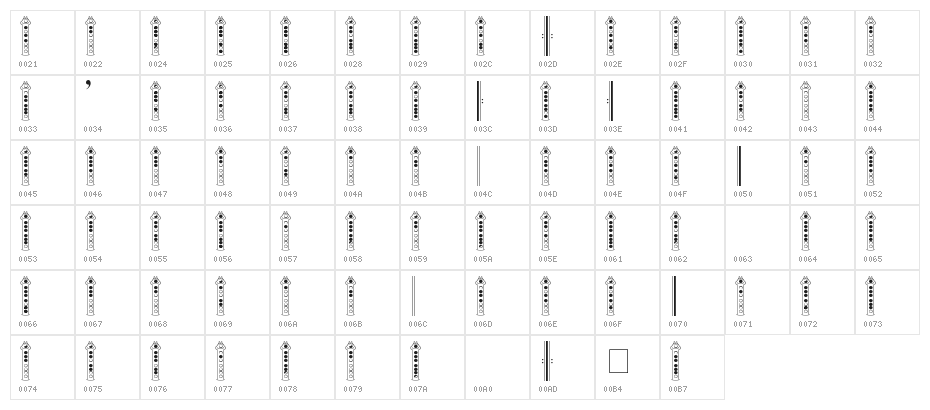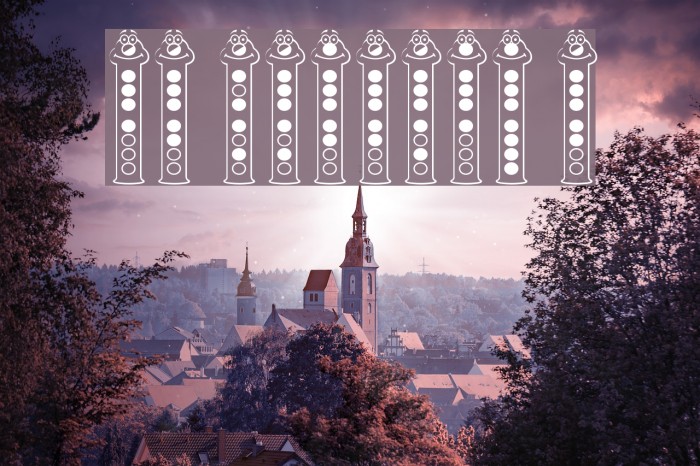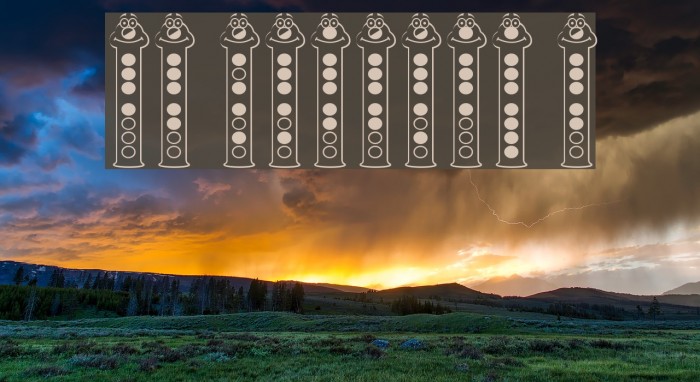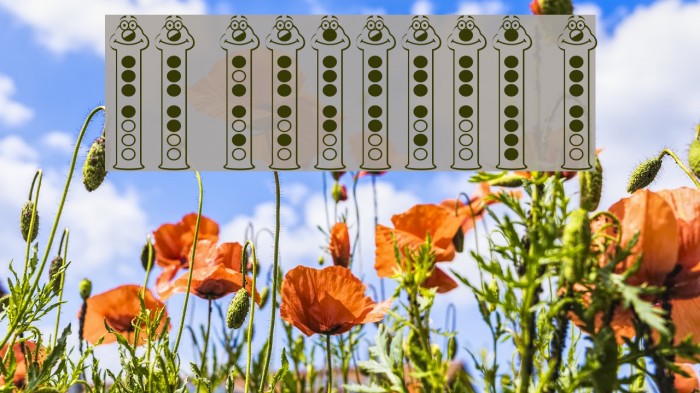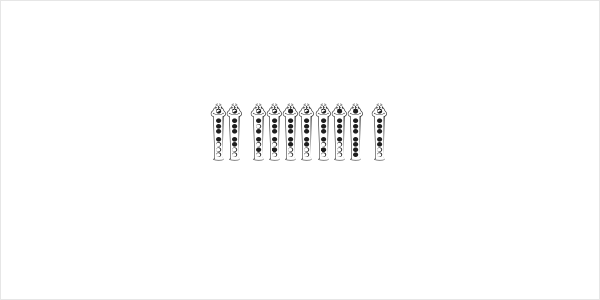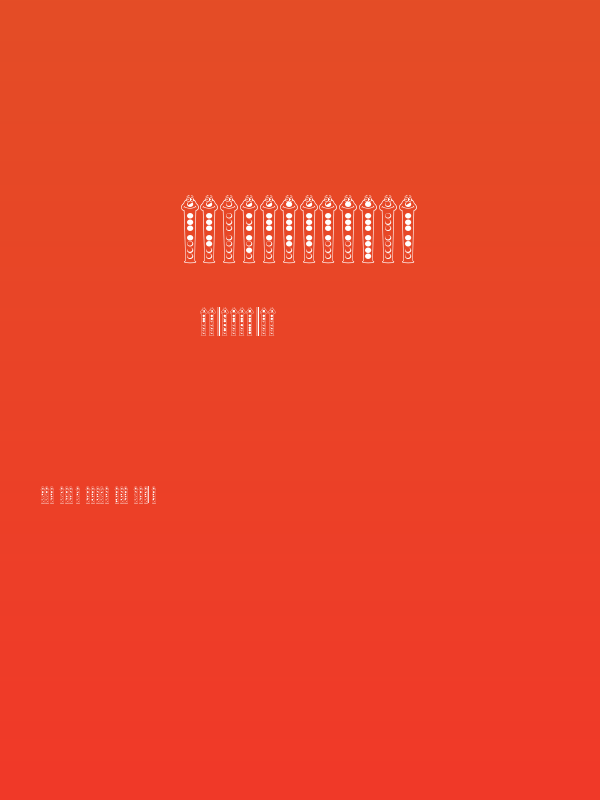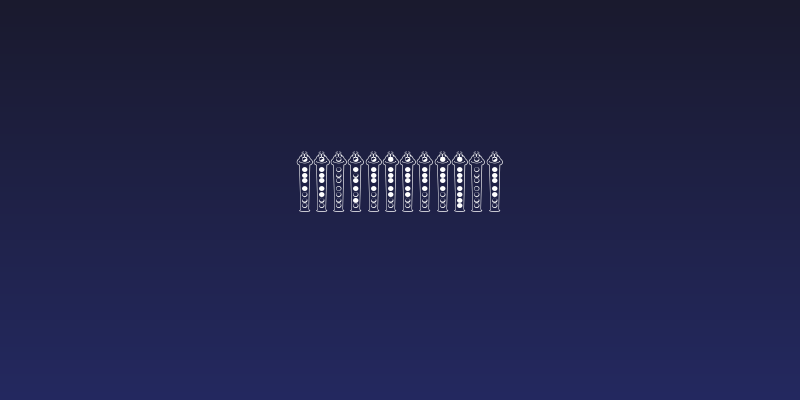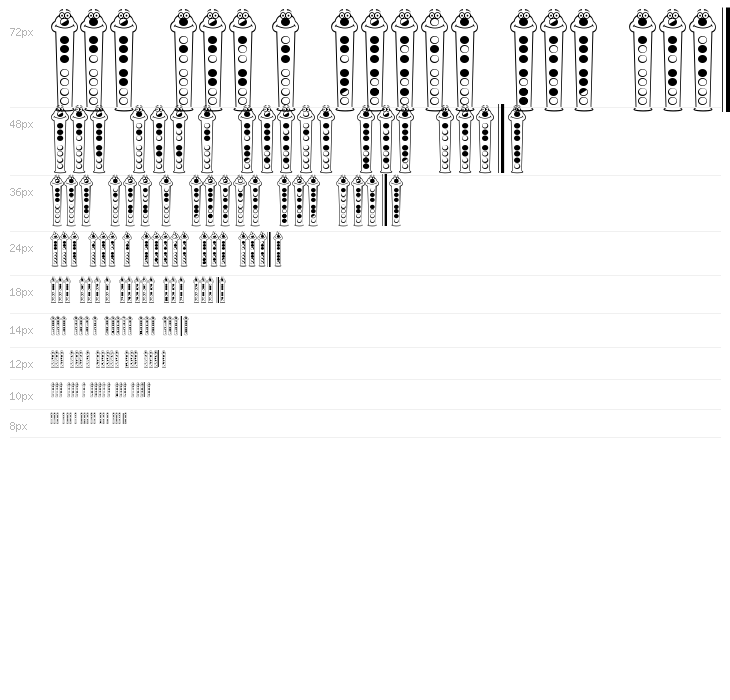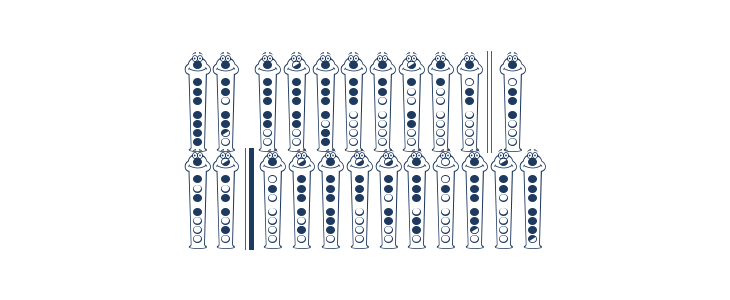
RecorderFace Font
RecorderFace Description
This is not a valid font. The image contains a series of recorder illustrations with faces, each representing different characters. The design is playful and whimsical, featuring cartoonish elements rather than traditional typographic characters. Each recorder has a unique arrangement of filled and unfilled circles, likely intended to represent different letters or symbols, but they do not form a coherent or usable font for text purposes.
| Use Case | Decorative illustrations, Educational materials |
| Proposed Projects | This design could be used for educational materials or children's music books, where a playful and engaging visual style is desired. |